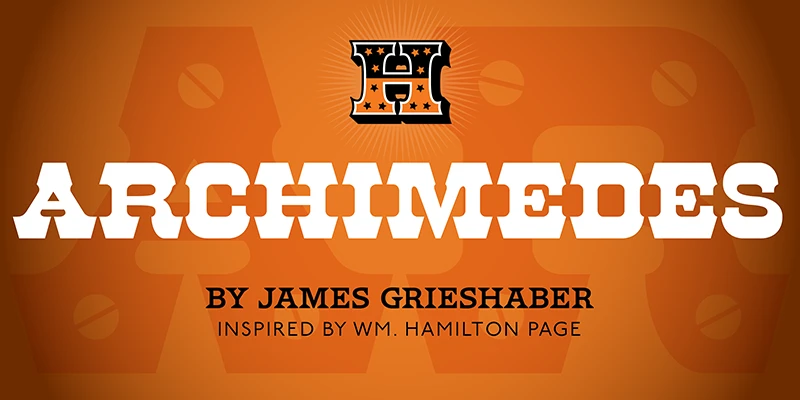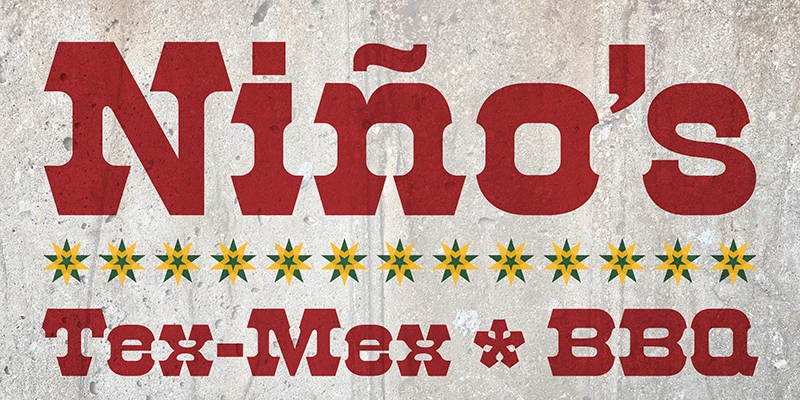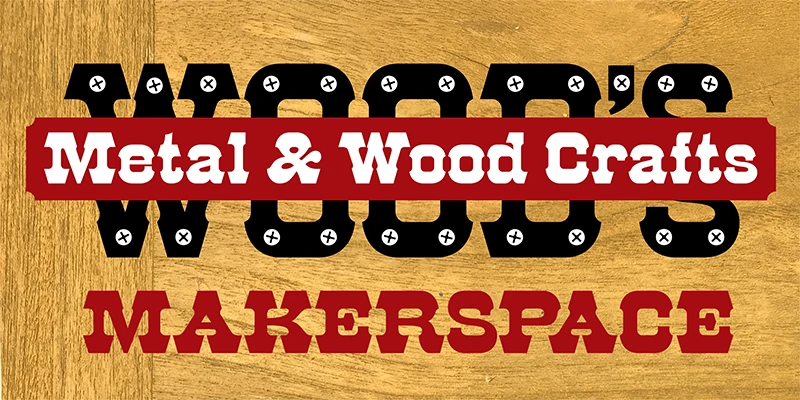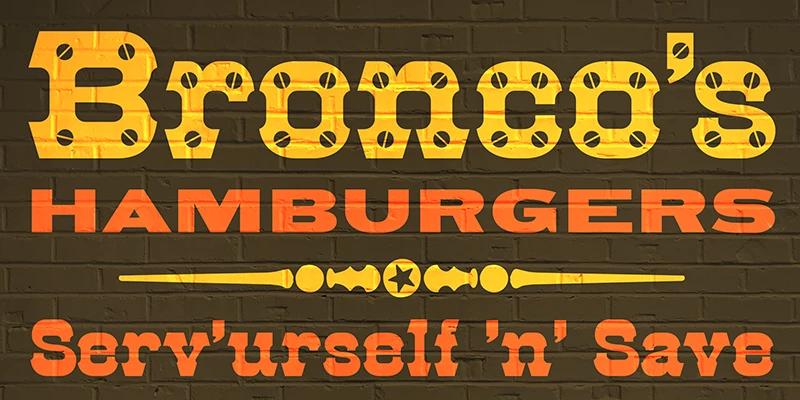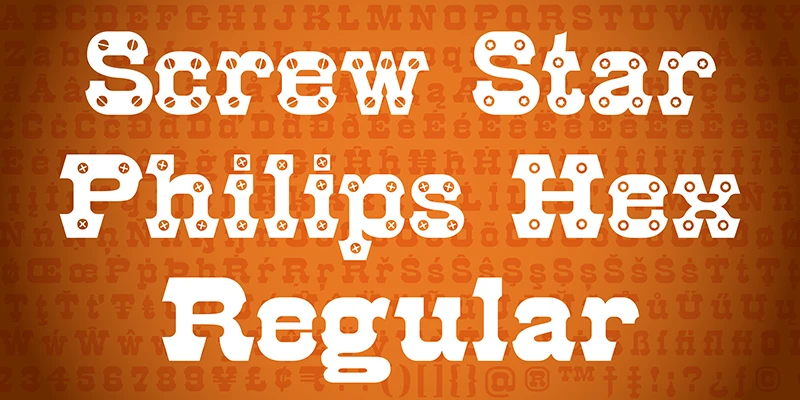
HWT Archimedes is a wood type design sometimes known as Mansard. Virgin Wood Type brought this version to life as a wood type font. The variation with screw heads in the design was first seen in 1879 by William H. Page Co. This new digital version features a variety of styles, including the standard screw head option. The result is a sturdy, industrial font with a certain “joie de vivre” attitude. Not for every designer, but you know this is for YOU!
Designed by James Grieshaber